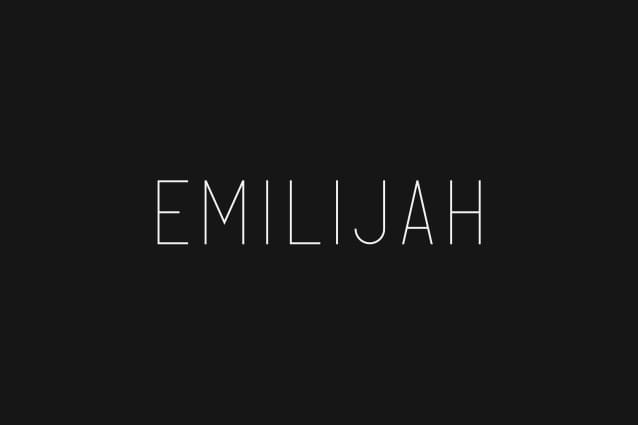
Emilijah Sans Font
Emilijah Sans Font is an elegant and versatile sans serif font that will make your typography truly unique! It will enchant every logo, branding, headline, or plain text!